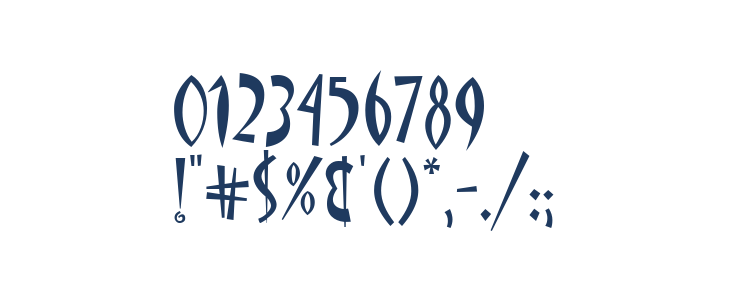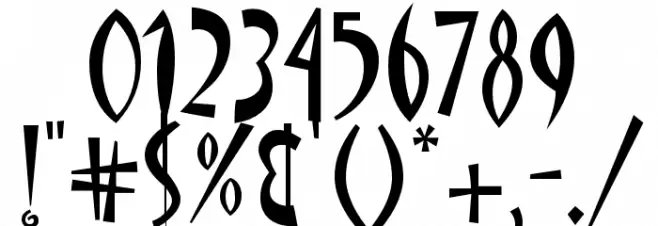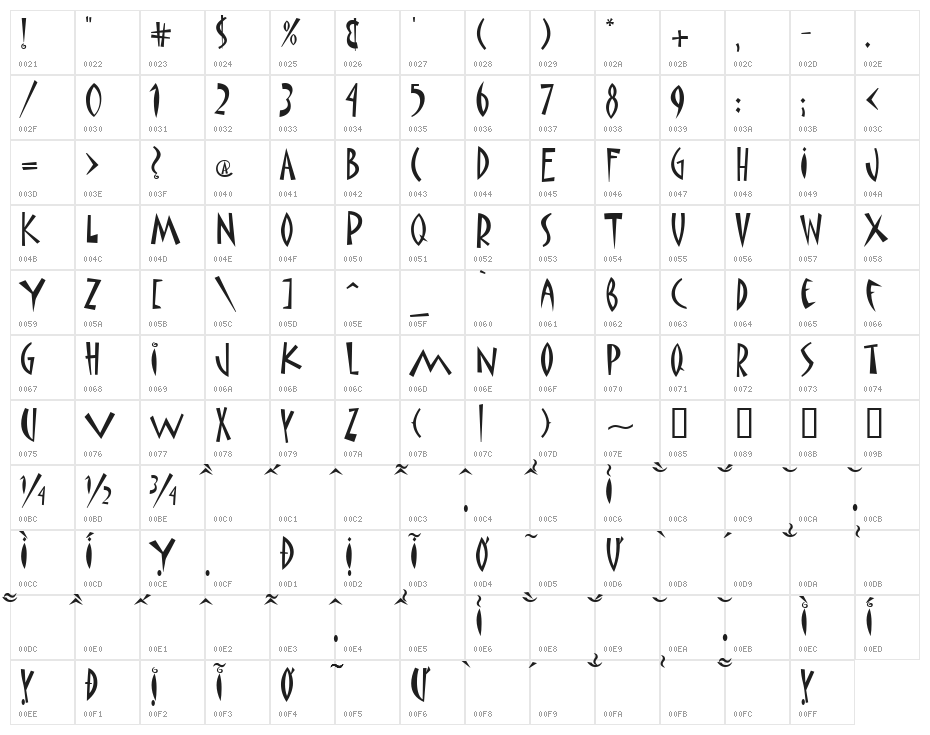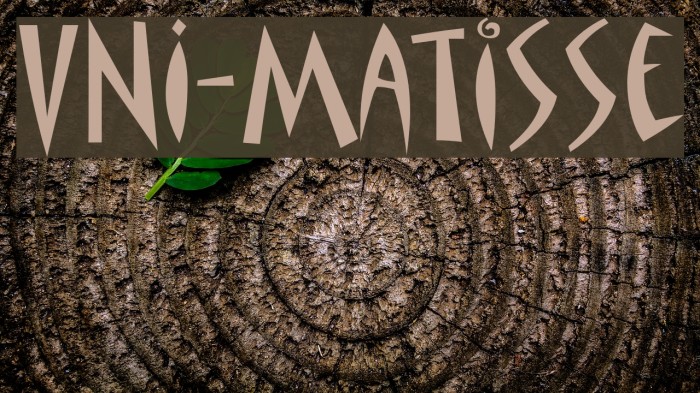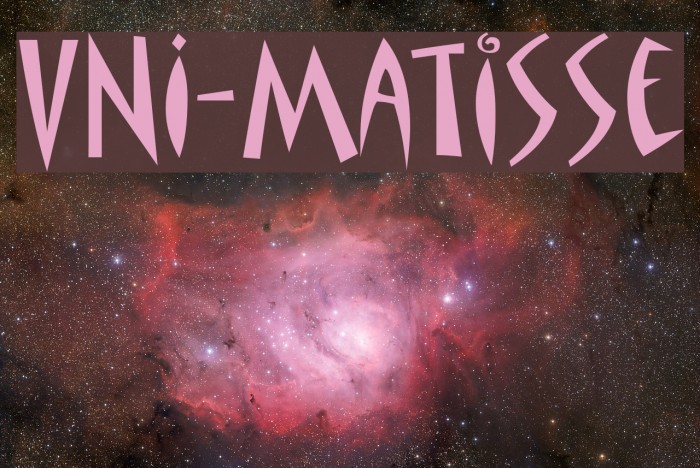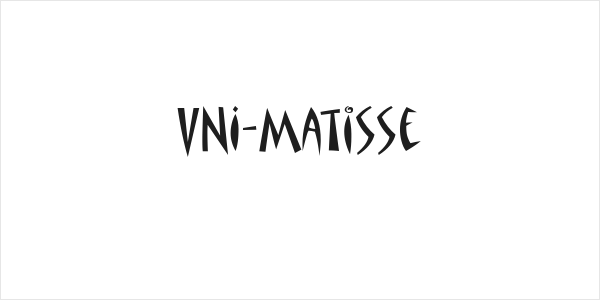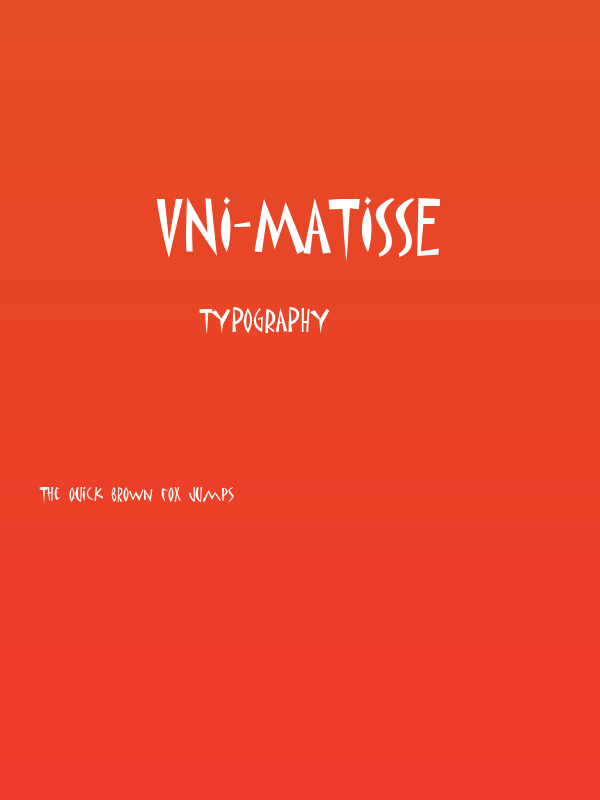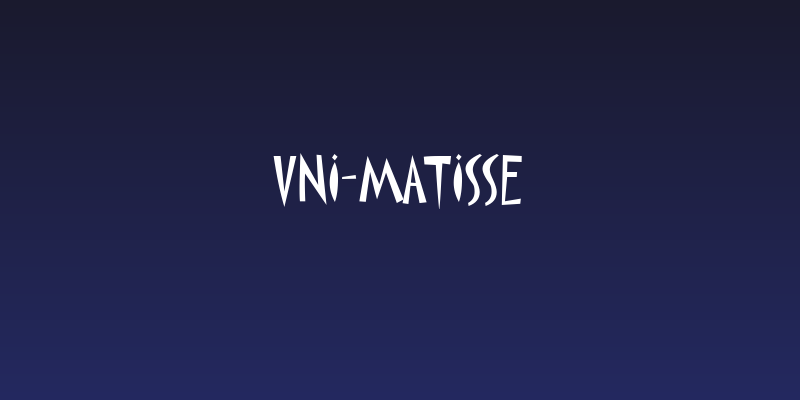
VNI-Matisse Font
VNI-Matisse Description
This font features a highly artistic and decorative style, characterized by its sharp, angular lines and exaggerated curves. The uppercase and lowercase letters maintain a consistent height, creating a uniform appearance. The numerals and special characters follow the same design principles, with unique and creative shapes that stand out. The overall look is dynamic and eye-catching, making it suitable for projects that require a bold and expressive typeface. The font's playful yet sophisticated design makes it ideal for creative projects, branding, and artistic displays.
| Use Case | Logos, Headlines, Artistic Displays |
| Proposed Projects | Ideal for creative branding, artistic displays, posters, and unique logo designs. |